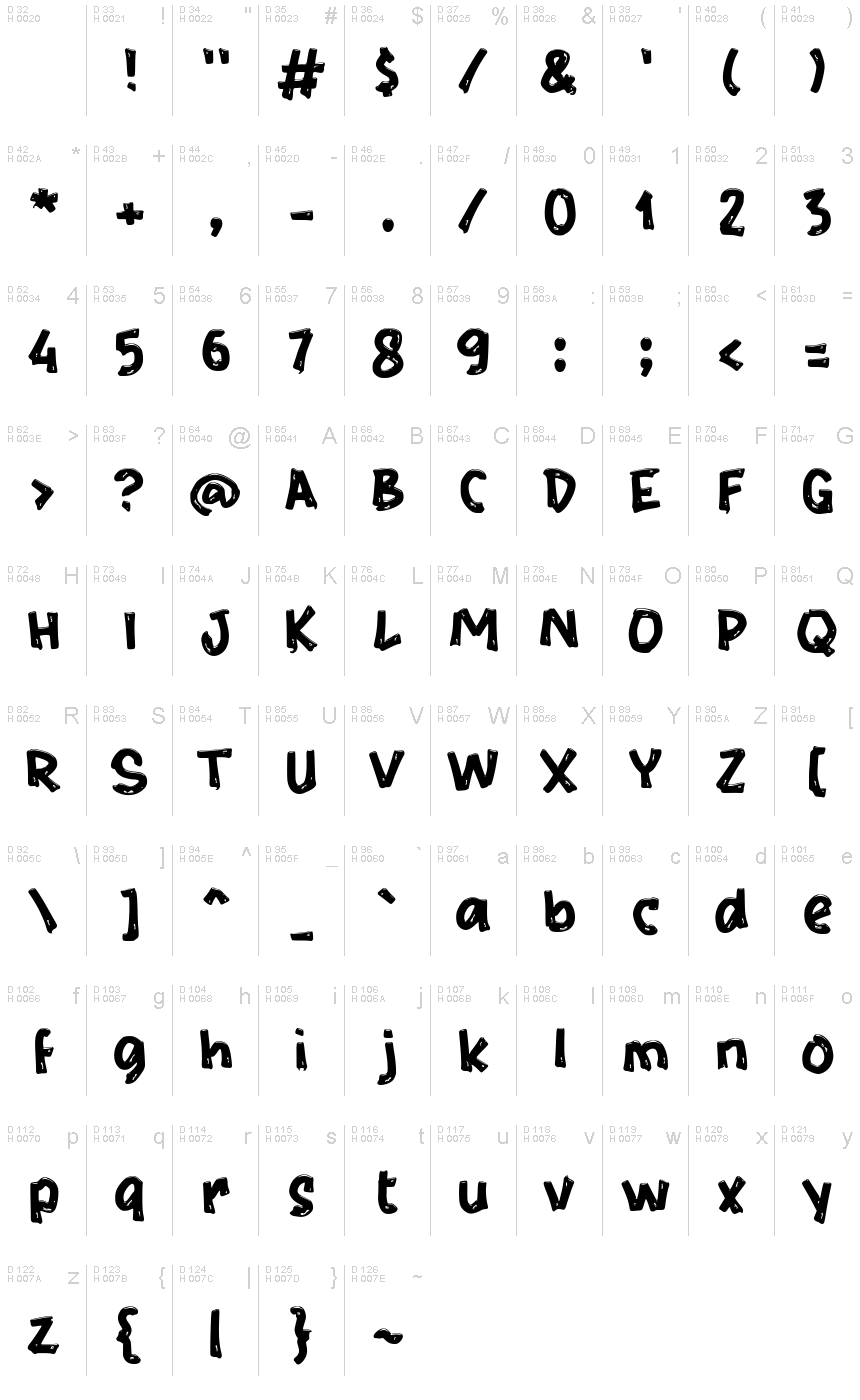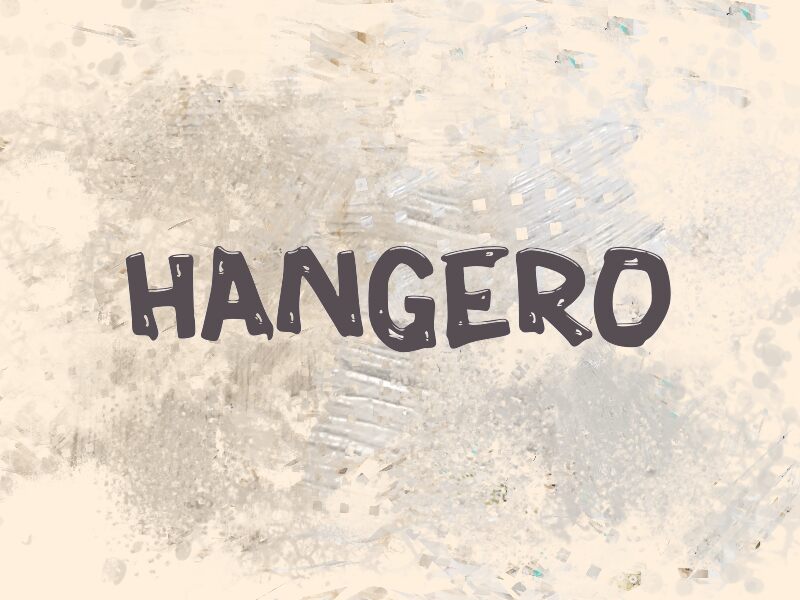
HANGERO
Hangero font by wep is a modern display free font expressing loudness and attention. Designed with bold distorted characters, the playful typeface helps you create dynamic projects filled with life and energy. It is important to mention that Hangero has all the essential elements for great readability.